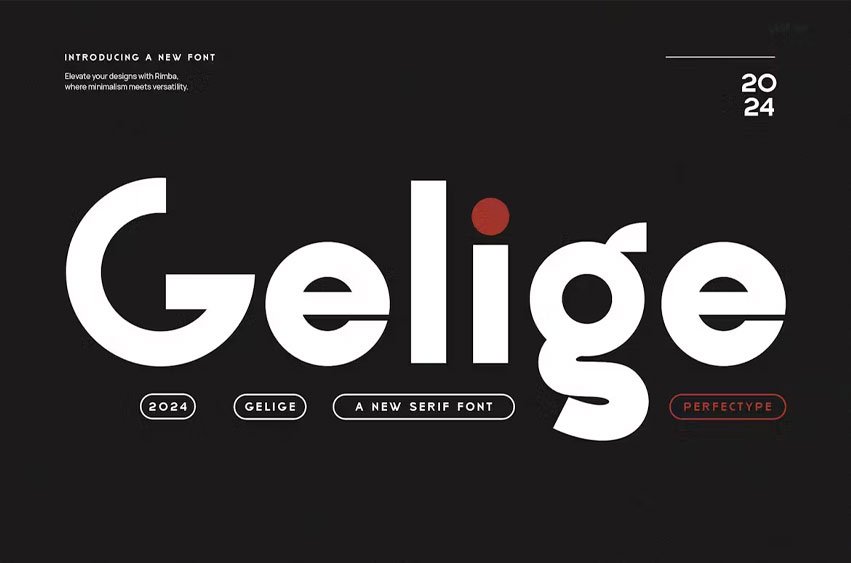
Gelige Font is typeface encapsulates a rhythm that is symmetrical and balanced due to a unique mix of different sources of inspiration. Proportions are precisely adjusted with subtle contours and subtle contrasts. These shapes give the font an attractive look without compromising on elegance and minimalism, ensuring that any glyph will work well in any graphic design purpose such as brochures, videos, advertising branding, logos, magazines, layout designs, posters, post templates, games and others
Gelige Font Preview